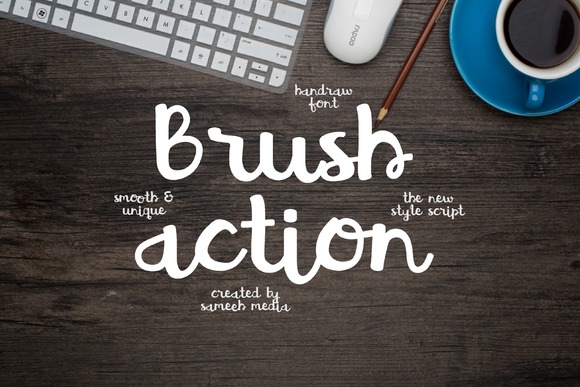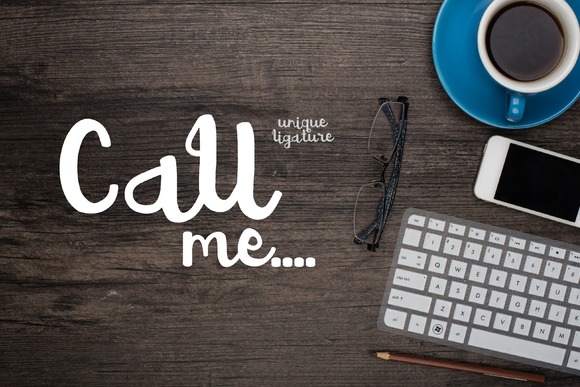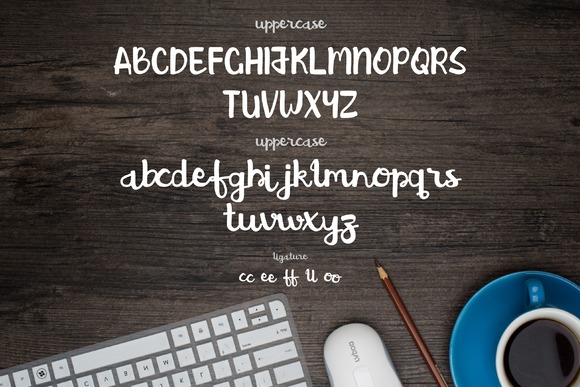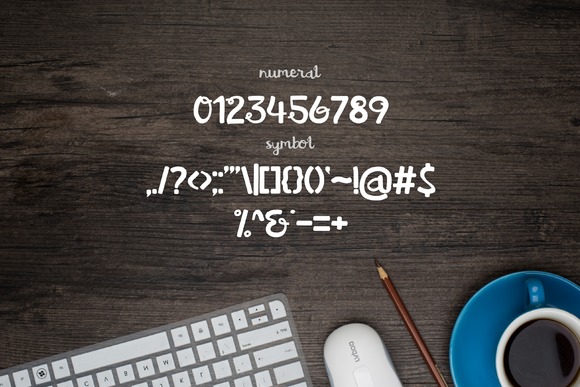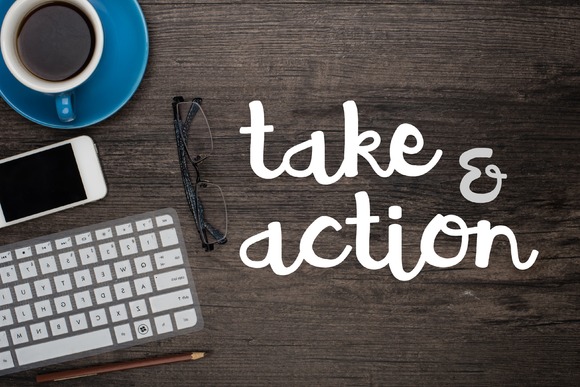
Brush Action Font
About Brush Action Font
Brush Action is a beautiful typeface which can be used for various purposes such as: headings, logos, badges, posters, book covers, news papers and much more!